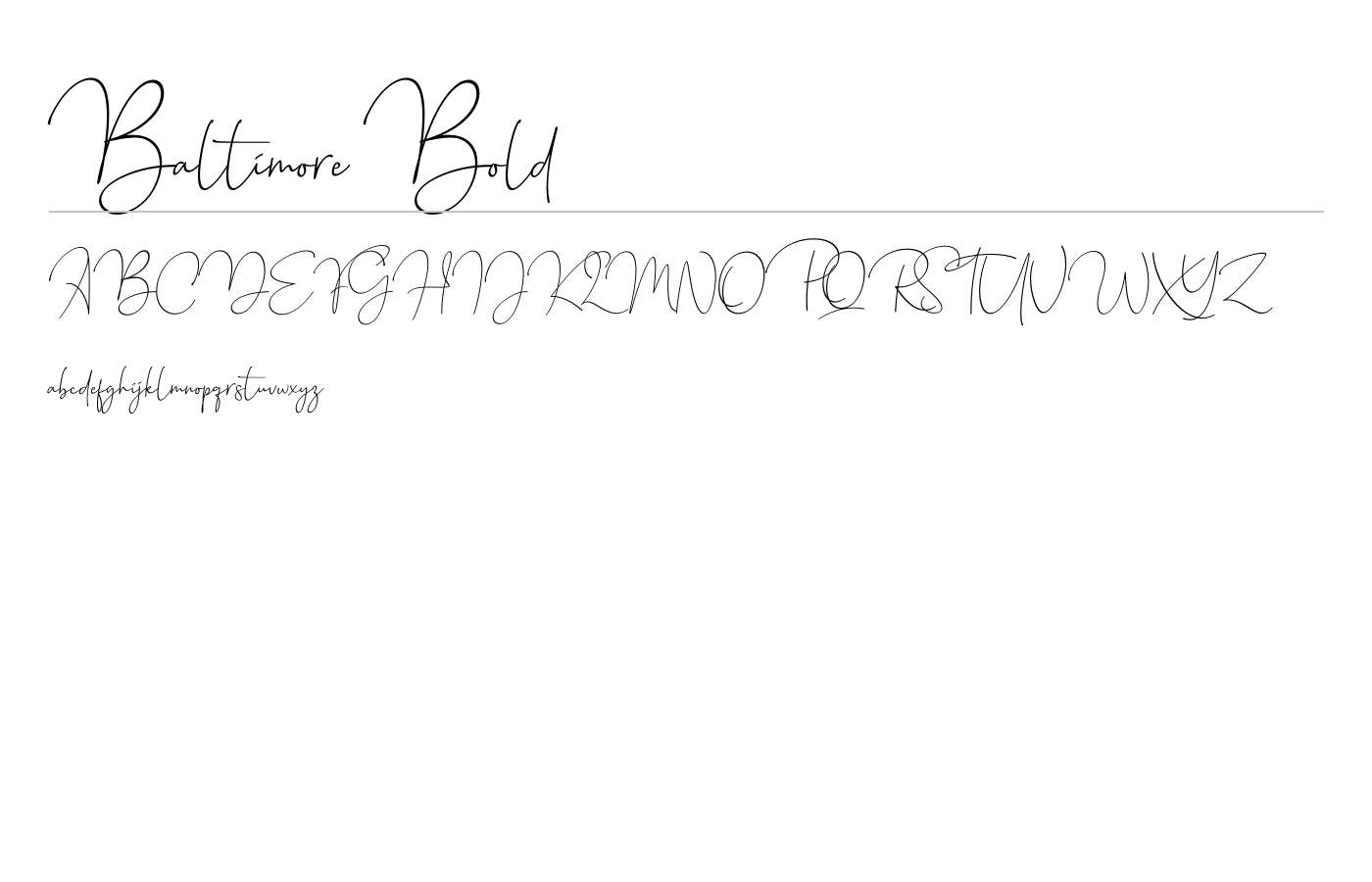
Baltimore Regular is a delicate and expressive script font characterized by its thin, flowing strokes and elegant handwritten style. With its tall, slender letterforms and graceful swashes, it conveys a sophisticated yet approachable feel, making it ideal for invitations, branding, and creative projects that require a personal, artistic touch. This font’s airy and stylish design works beautifully for fashion, beauty, or lifestyle visuals that want to evoke charm and refinement.
Baltimore Regular Font